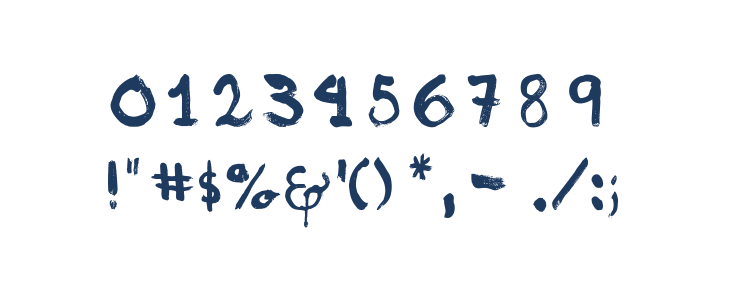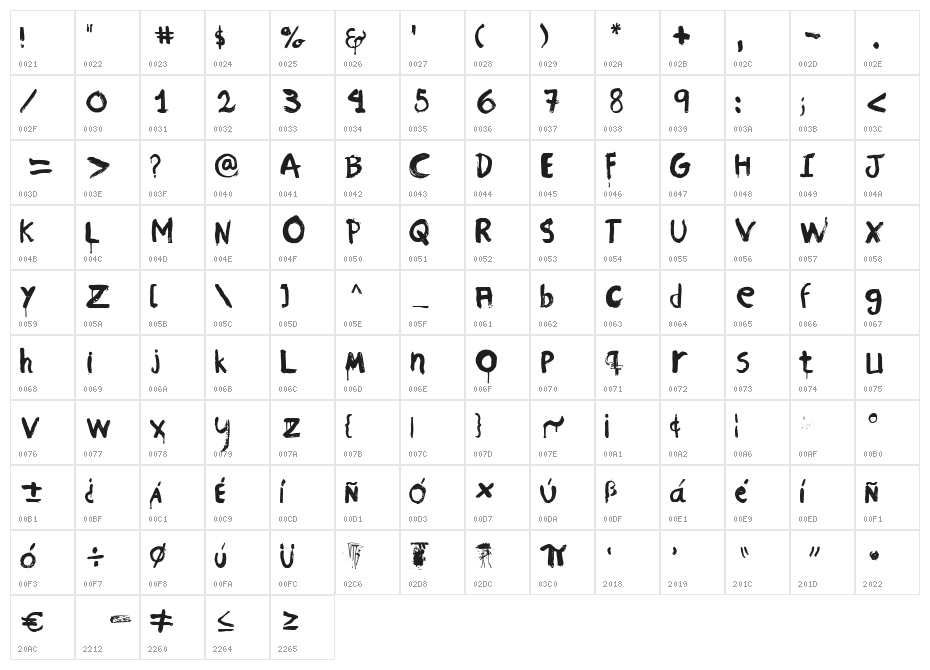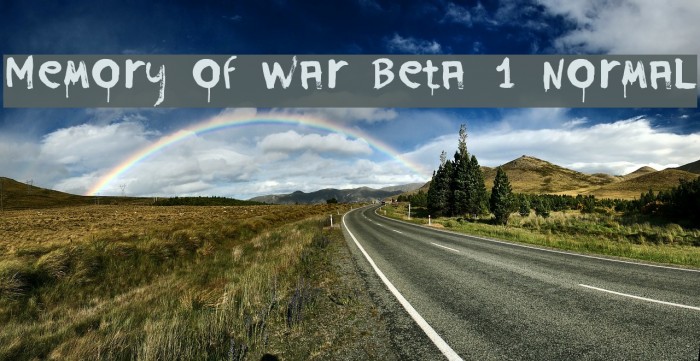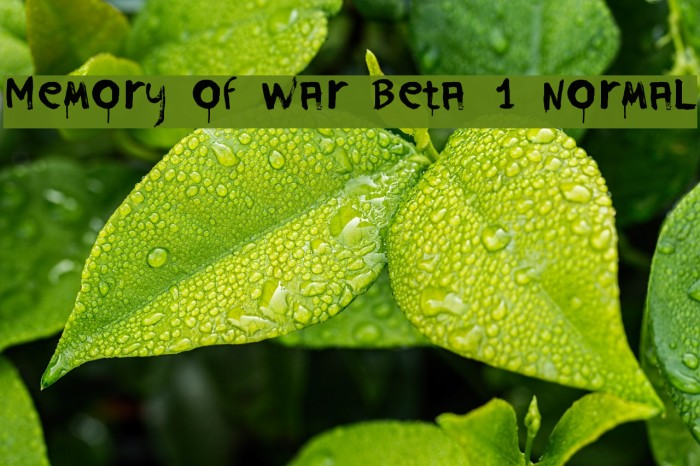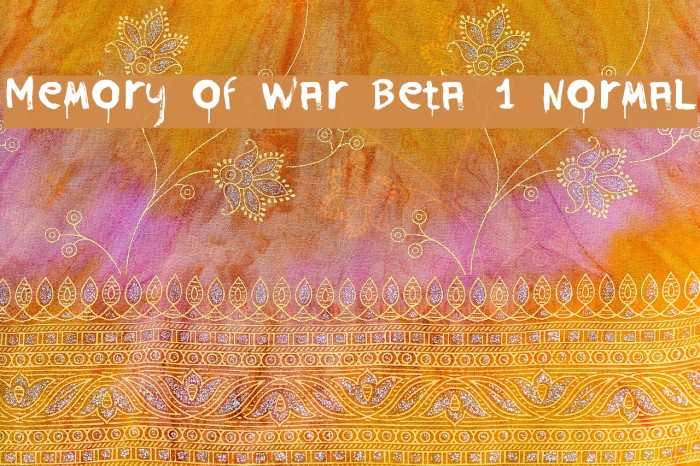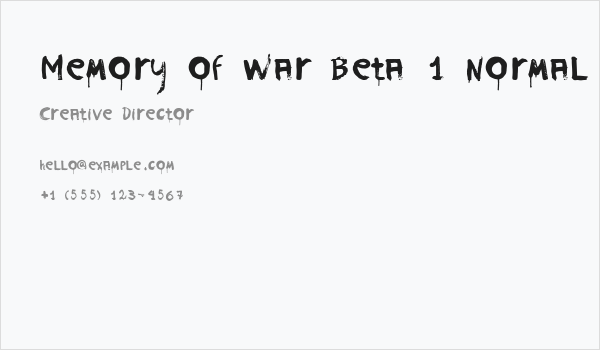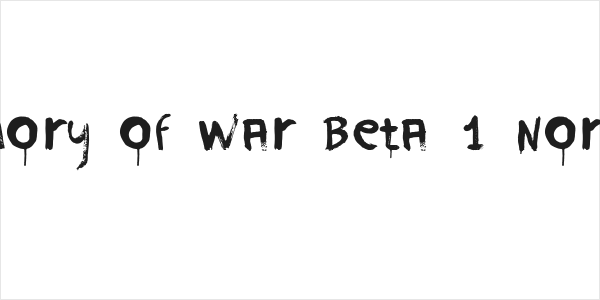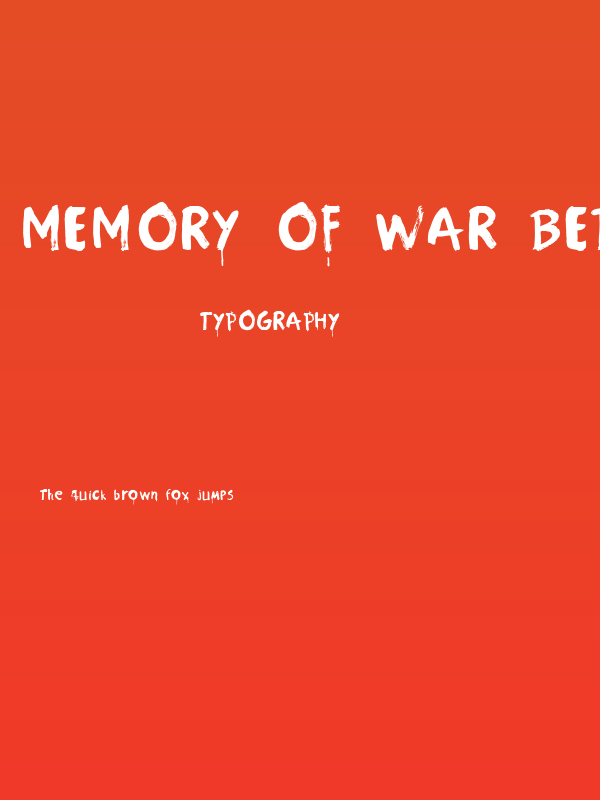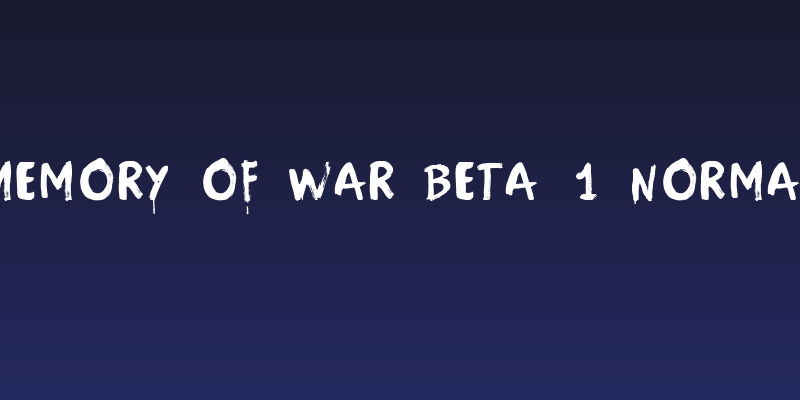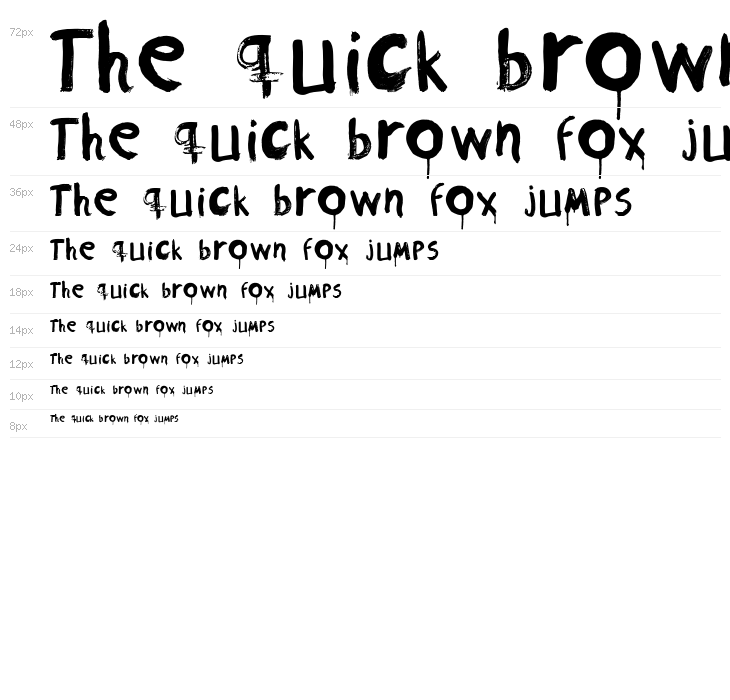
Memory of War Beta 1 Normal Font
Memory of War Beta 1 Normal Description
This font features a bold, expressive style with a hand-painted appearance, reminiscent of graffiti or street art. The characters have a rough, textured look, with uneven edges and occasional drips, adding to its raw and edgy aesthetic. The uppercase and lowercase letters maintain a consistent style, with a playful yet rebellious vibe. Numbers and special characters follow the same artistic theme, making the font suitable for projects that require a strong, impactful visual statement.
| Overall Style | Modern, Urban |
| Proposed Projects | Ideal for album covers, streetwear branding, event posters, and urban-themed designs. |